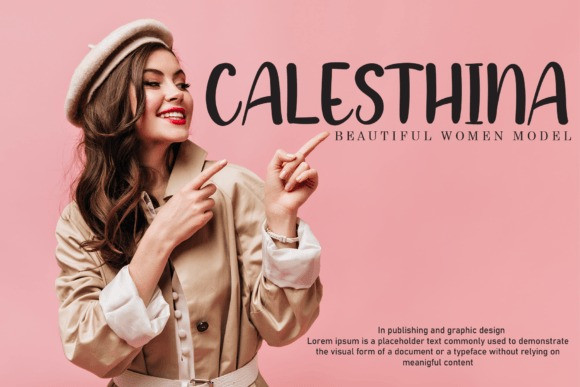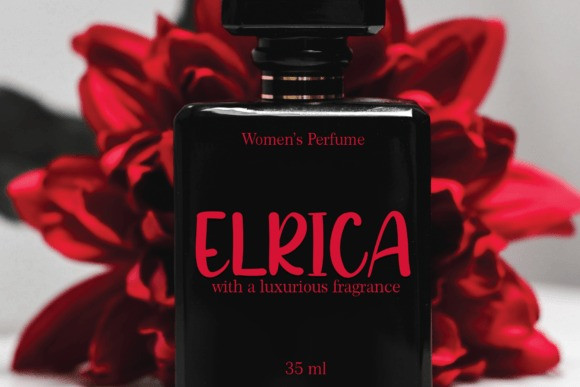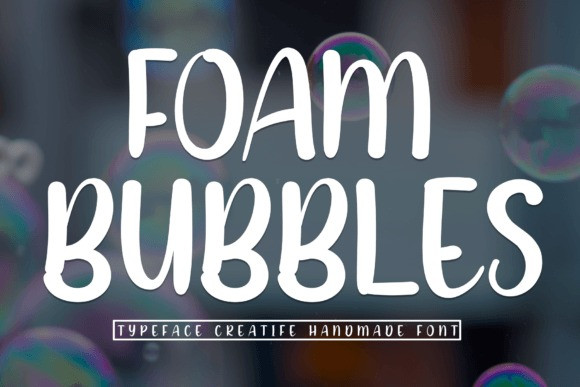
Foam Bubbles Font
Foam Bubbles is a sweet and friendly display font. Cute and fun, this font is ideal for writing wedding invitations, cards, or any other design that might need a fun touch!